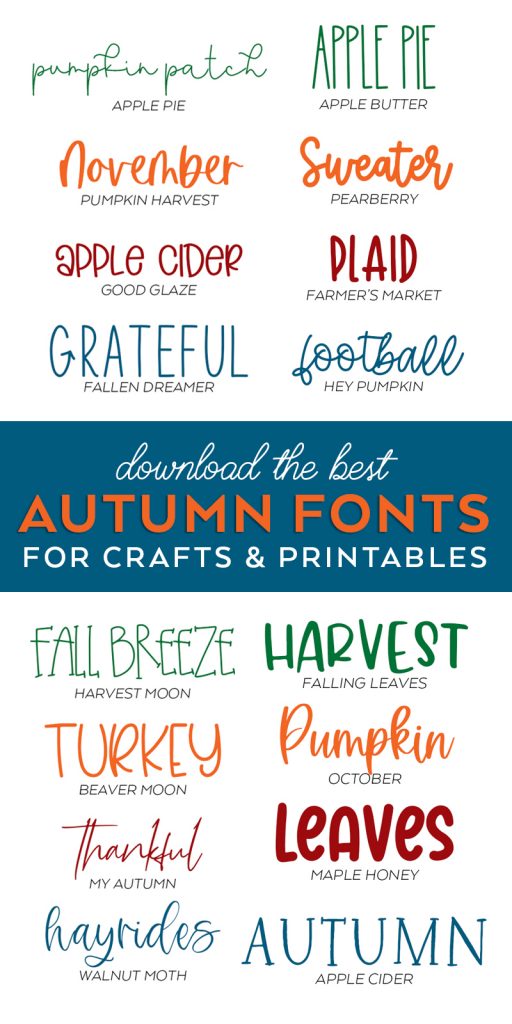
Fall Fonts for Crafts and Printables
It’s time to make Fall decor and crafts! If you’re using a Cricut or Silhouette machine, or designing Fall Printables, check out some of my favorite Fall fonts that I use all of the time! The best part is that they all come with commercial use licenses, so you can use them to sell your crafts or designs!
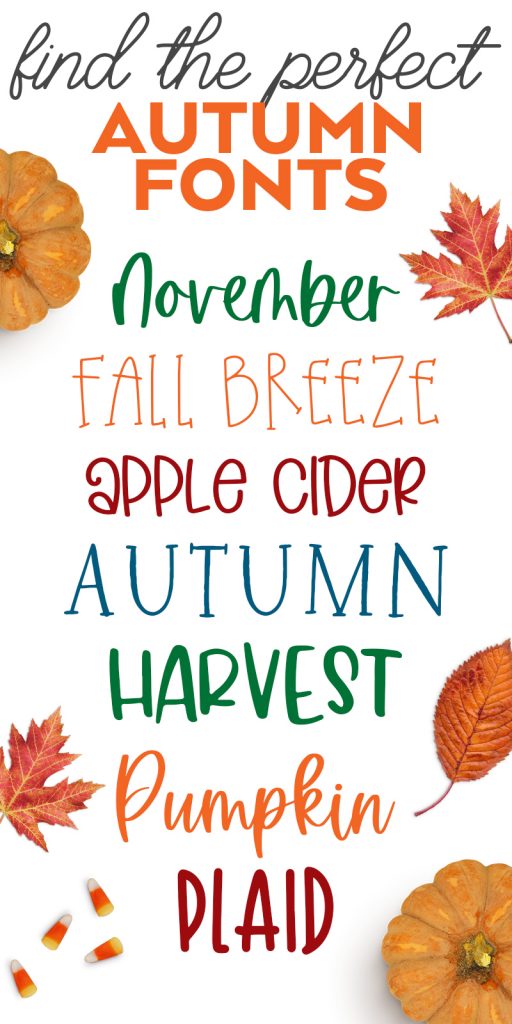
The Best Fall Fonts
It’s Fall, y’all! Before you dive into Christmas decorating, it’s a great time to make Fall crafts for Thanksgiving or to decorate your home with all of the pumpkins, fall leaves and coziness that autumn brings! Every year I dive into creating new fall projects, and these are some of my favorite fonts.
Fall fonts can range from farmhouse style to comforting hand written scripts and everything in between! There’s a lot of these that can be used all year, too! And if you’re looking for Halloween-specific fonts, make sure you check out my Halloween Fonts for Crafts and Printables post!